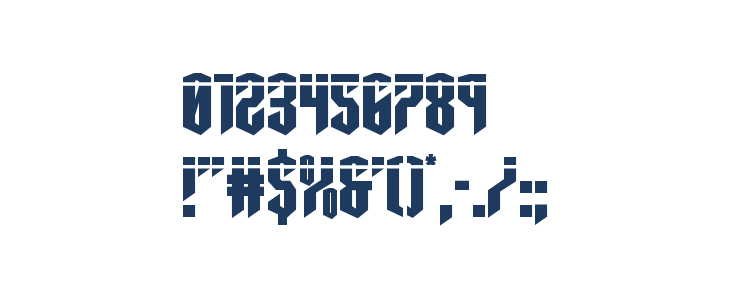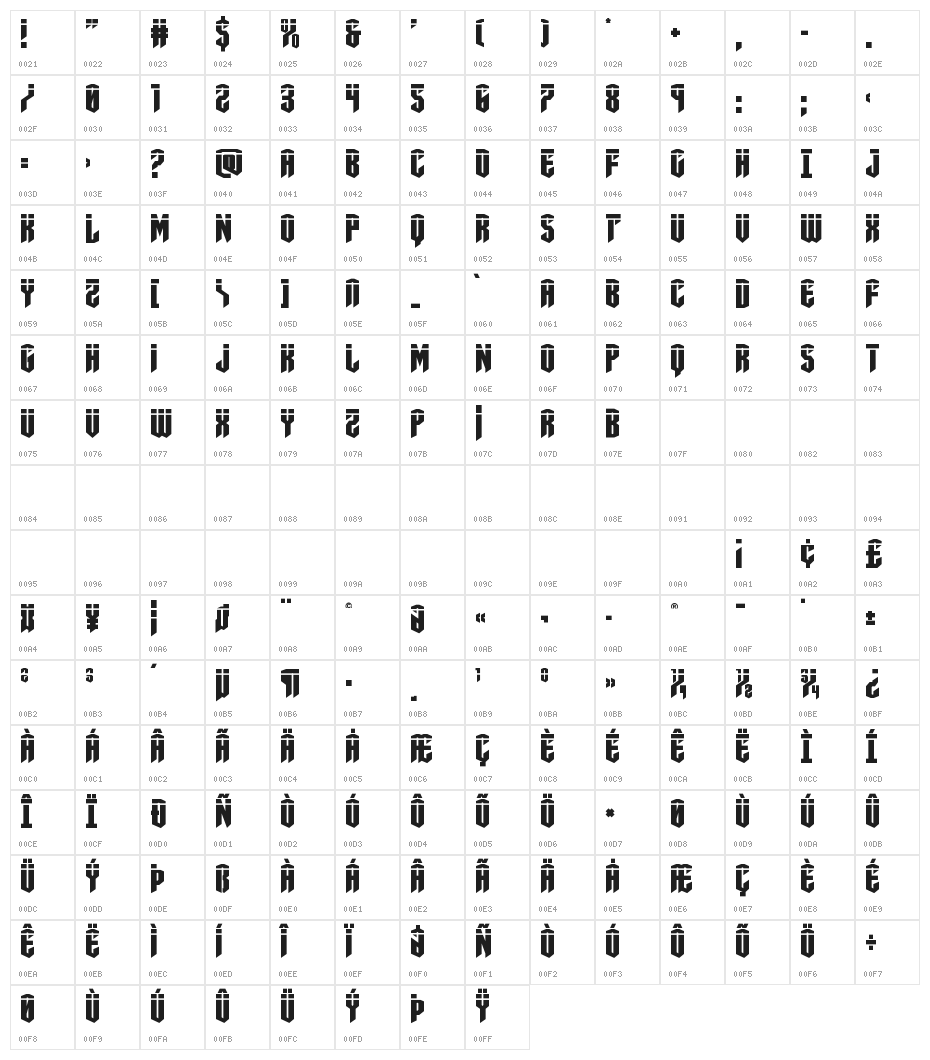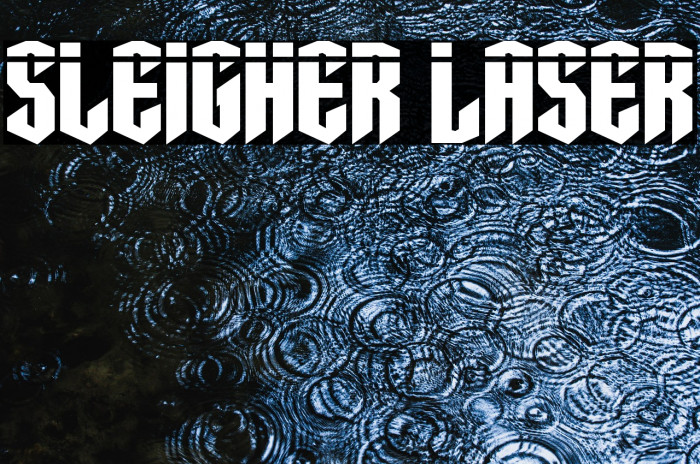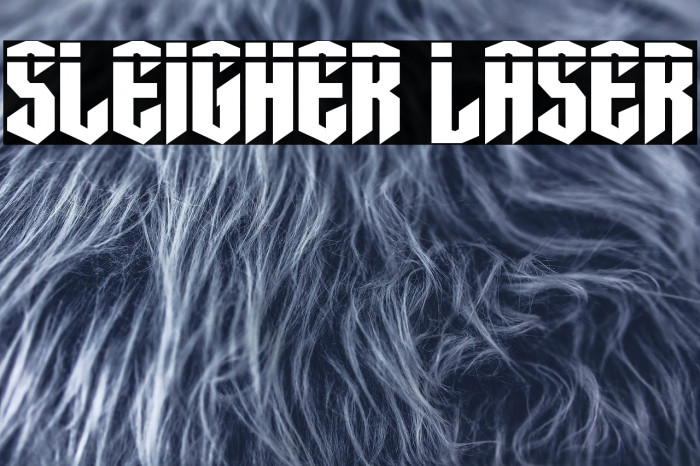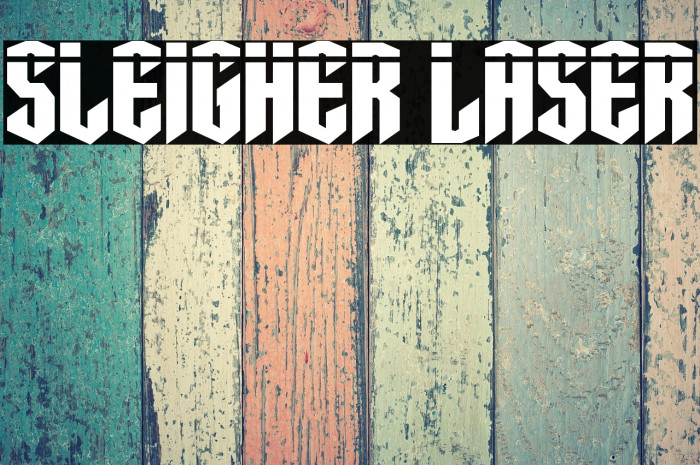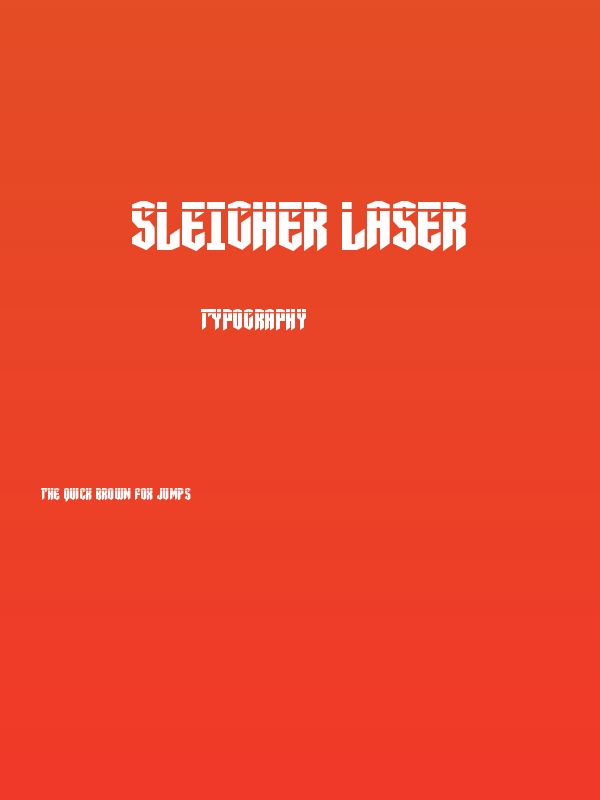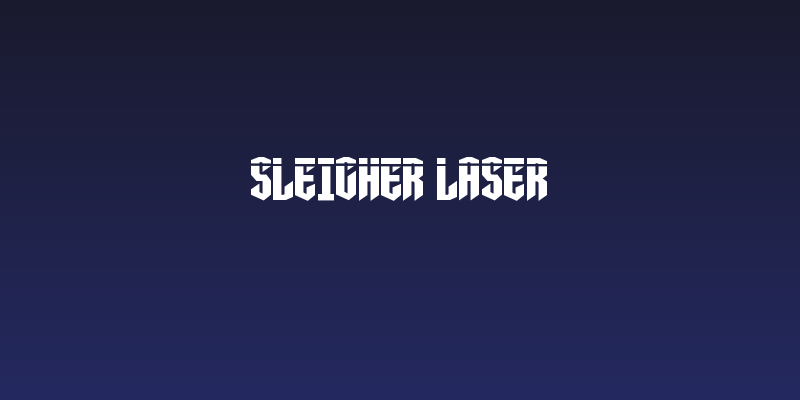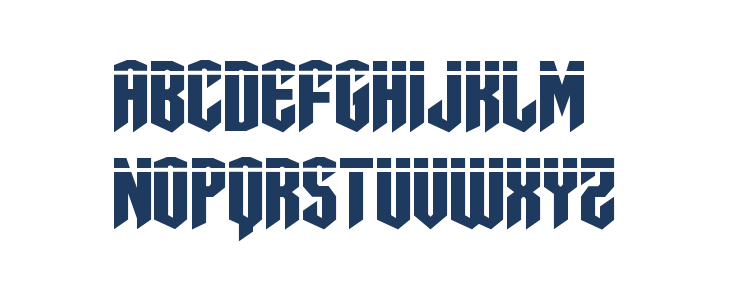
Sleigher Laser Font
Sleigher Laser Description
This font features a bold, angular design with sharp edges and a futuristic aesthetic. The characters are constructed with a geometric precision that gives them a striking, impactful appearance. The uppercase and lowercase letters maintain a consistent style, with each character exhibiting a unique angular cut that adds to the overall dynamic look. The numbers and special characters follow the same design principles, ensuring uniformity across the font. This typeface is ideal for projects that require a modern, edgy feel, such as tech-related branding or sci-fi themed designs.
| Proposed Projects | Ideal for tech branding, sci-fi themes, video game titles, and modern posters. |